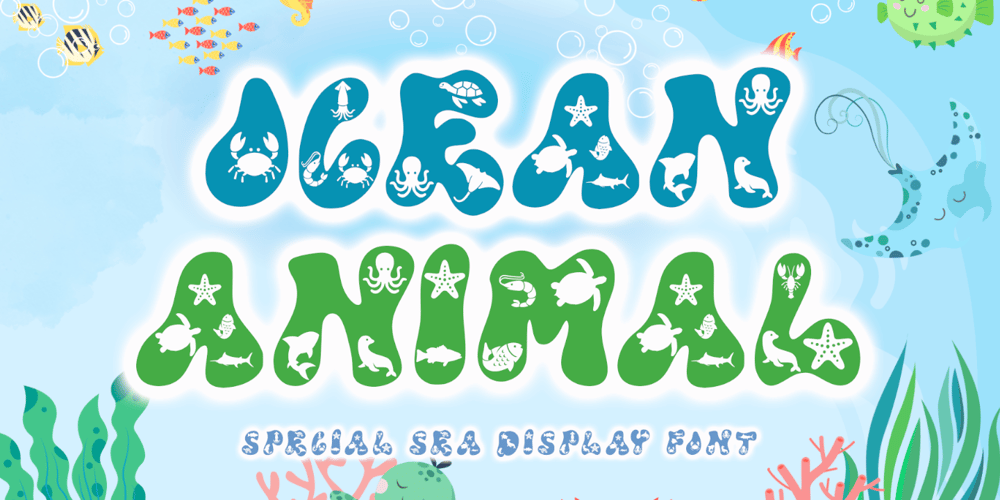
Ocean Animal Font Family was designed by Isroni Yoga Prasetya and published by Yoga Letter. Ocean Animal contains 1 styles and family package options. “Ocean Animal” is a unique display font with sea animal decorations on each letter. Equipped with uppercase letters, lowercase letters, numerals, punctuations and multilingual support. Very suitable for book titles, film titles, comics, posters, banners, logos, branding, stickers and others.